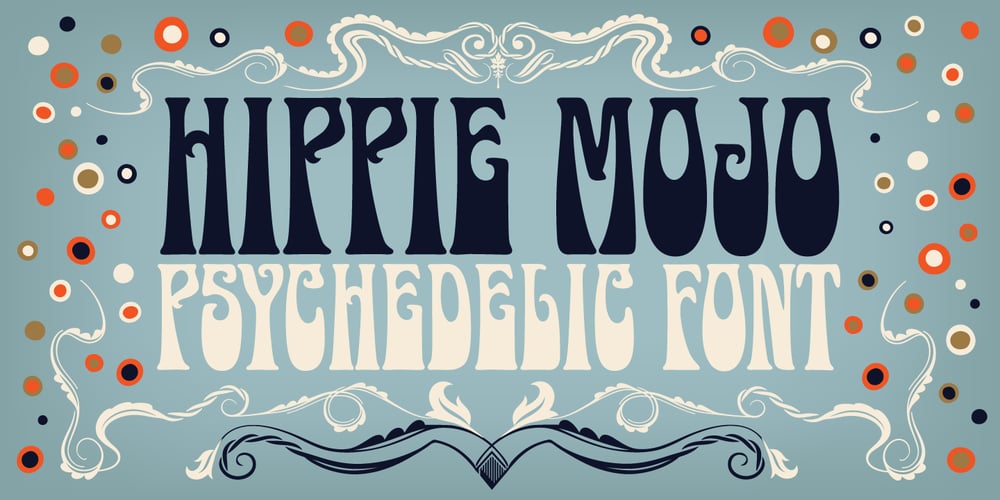
Hippie Mojo
Hippie Mojo font
Hippie Mojo Font Family was designed by Mott Jordan and published by Mysterylab. Hippie Mojo contains 1 styles and family package options. Set the wayback machine for about 1967. Smell the patchouli? Now you can inject just the right dose of swirly-licious mojo into your retro design with this original vintage-styled sixties font. But as with many psychedelic hippie lettering designs, the history reaches back even further; it owes a designer’s debt of gratitude to the designs of the Art Nouveau era as well. This is predominantly a uni-case alphabet, but also features a few alternative characters in the lower case – at the full height of the capitals. With an extensive character set and multilingual glyphs, you can use Hippie Mojo to say “Groovy baby” in many languages. Evoke the carefree and tripped-out vibe of the psychedelic era with Hippie Mojo; it’s pure retro fun!